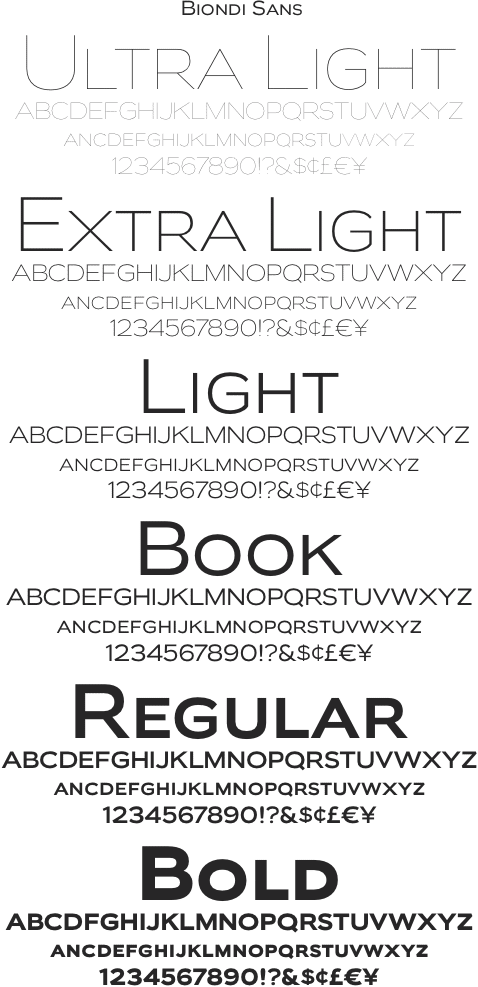
Biondi Sans Family (6 fonts) (Typodermic)
Inspired by Goudy’s 1905 original, Biondi Sans maintains the classic wide and squarish shape that made Copperplate Gothic an institution (but without the serifs) and moves it forward into the 21st Century.FONTHAUS END USER LICENSE AGREEMENT